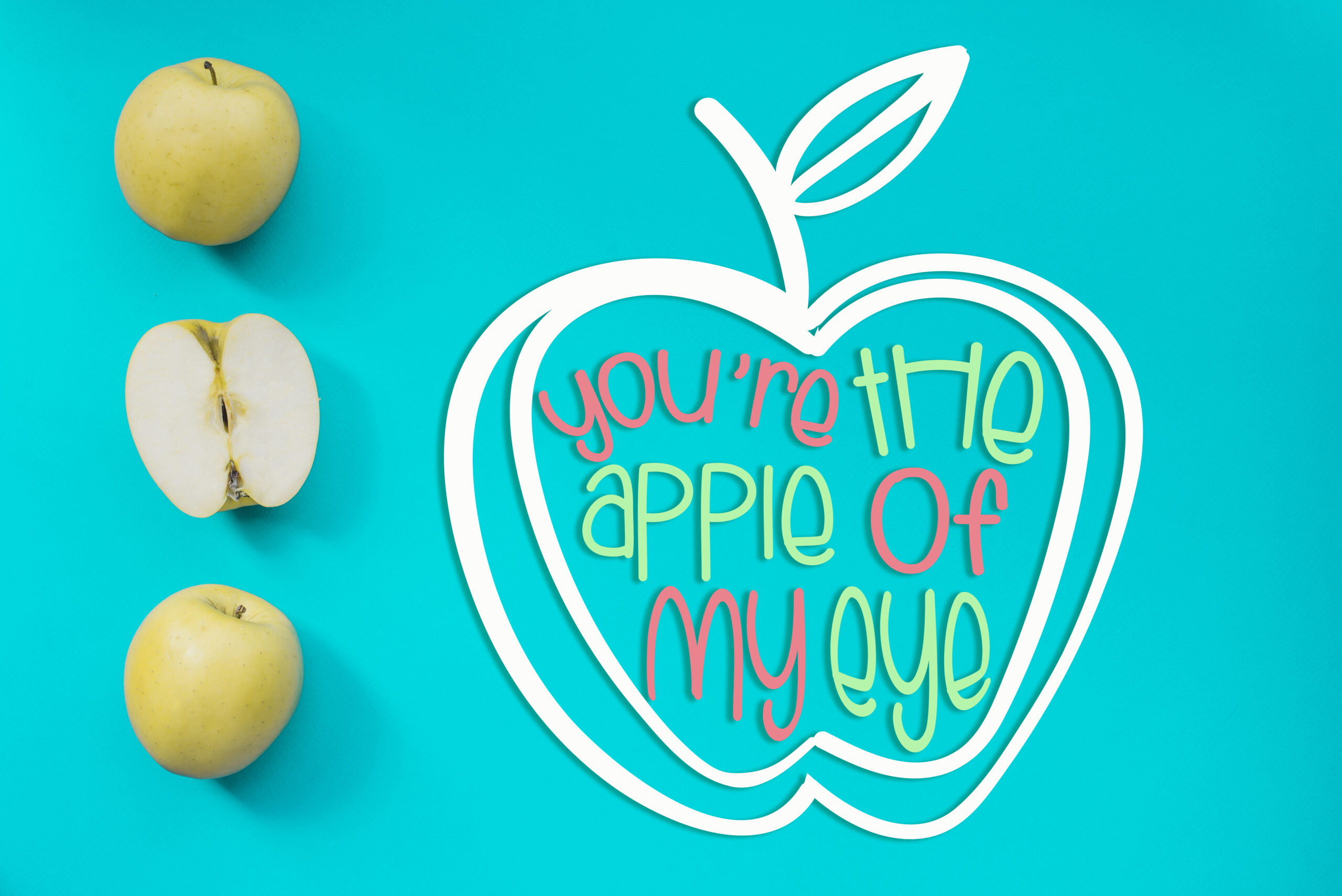
HomeScript FontsJune Apple Font Script Fonts June Apple Font FacebookXPinterestWhatsApp June Apple Font Poster 2 June Apple Font Poster 3 About June Apple Font A hand drawn font perfect for crafting or creating cute apparel for the littlest in your life! DOWNLOAD NOW People also explored Amertano Font Valencia Fashion Font Flat Font Valentine Wish Font Mybela Font Londoner Font Bella Vista Font Holla Olla Font Bayleigh Font 346 0 TagsJune Apple Font Previous articleLaChalk FontNext articleMerlin Script Font LEAVE A REPLY Cancel reply Comment: Please enter your comment! Name:* Please enter your name here Email:* You have entered an incorrect email address! Please enter your email address here Website: Save my name, email, and website in this browser for the next time I comment. Personal Use Free Super Discount Personal Use Free Read more about this font Cheese Matcha Font Personal Use Free Read more about this font Coolvetica Font Personal Use Free Read more about this font Makeba Font Personal Use Free Read more about this font BLOG How to Cut Any Font on Cricut: Convert a Font to SVG (Free) Turn any font into a clean SVG so it cuts crisp on Cricut - a quick 3-step workflow using a free font-to-SVG tool. Elegant Wedding Invitation Fonts – Handwritten & Script Fonts Top 10 Handwritten Fonts That Elevate Your Designs Best Fonts for T-Shirt Design – Top 2025 Picks